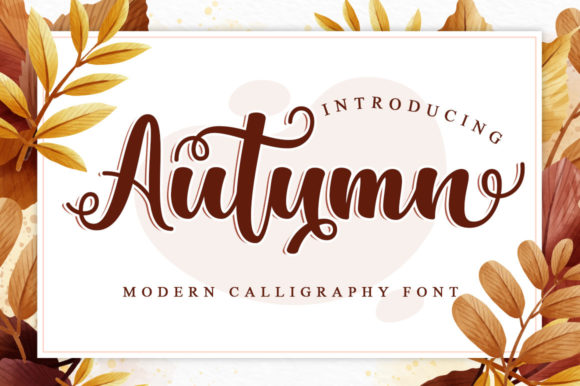
The Magic of Autumn Font: Elevate Your Designs with Charming Script
I’ll never forget the design project that led me to discover the enchanting Autumn Font. I was working on a whimsical branding campaign for a craft bakery, and I was struggling to find the perfect script font that would capture the warmth and playfulness of their brand. The client wanted something that would make their packaging and marketing materials stand out, but I was coming up blank. That’s when I stumbled upon Autumn Font, and it was love at first sight! ✨
Autumn Font has become a staple in my design toolkit, but like any font, it’s not without its quirks. Here’s my honest review:
- ✅ Charming and playful characters that seem to dance along the baseline, perfect for adding a touch of whimsy to your designs.
- ⚠️ Limited multilingual support, so if you need to design for non-English speaking audiences, you might want to double-check the font’s capabilities.
- 🤔 Some characters may appear a bit quirky when used in all caps or at very small font sizes, but this can often be adjusted with font size and styling.
The Story Behind Autumn Font
Autumn Font was designed with the intention of capturing the carefree spirit of the season. The designer aimed to create a font that would evoke feelings of coziness, warmth, and playfulness. By incorporating charming swashes and glyphs, they succeeded in crafting a font that’s perfect for a wide range of creative projects.
| Author | soderi graphicslide |
| Is Autumn Font suitable for body text or long-form content? | While Autumn Font is beautiful and charming, it’s better suited for headlines, titles, and short text passages. For body text or long-form content, consider a more legible font. |